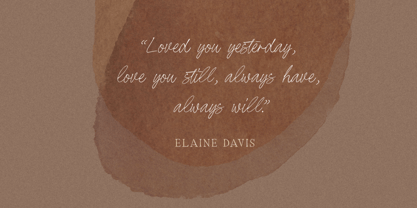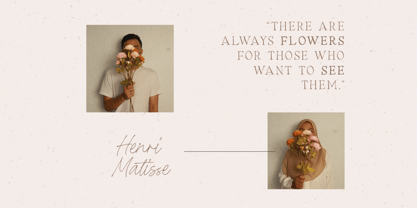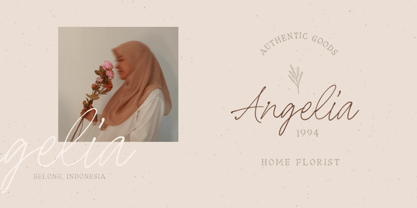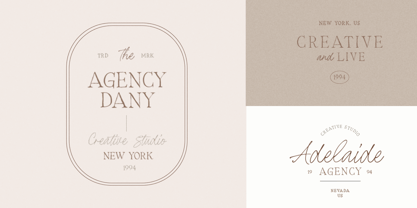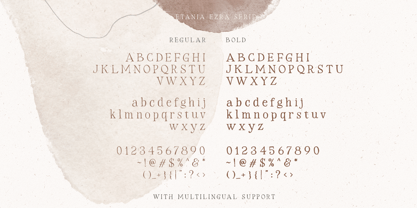
Etania Ezra
by Sarid Ezra
The Etania Ezra Font Family was designed by Sarid Ezra and published by Sarid Ezra. Etania Ezra contains 4 styles and family package options. More about this family
Etania & Ezra is a font family that have four fonts total in the package. Including serif and script with regular and bold style. This font is so special, you can feel the hand crafted and minimalist yet applicable in this fonts. Besides for wedding invitations, you can use this fonts for many occasions such as branding, logotype or even quotes. If you are looking fonts with handmade and organic vibes, this font will fulfill what you needs. This font also support multilingual!